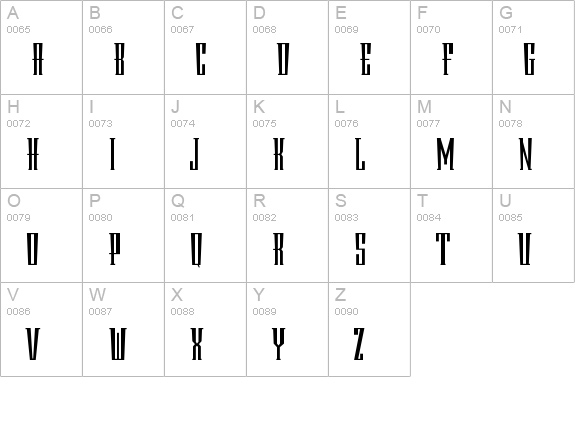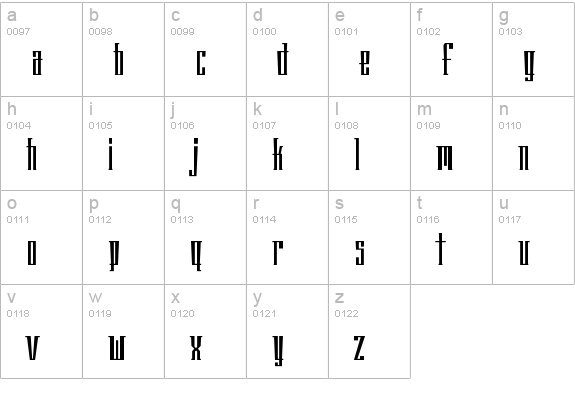
PhalanxRegular Font Details
PhalanxRegular font is a stylish and versatile typeface that is sure to catch the eye. Its clean lines and modern design make it perfect for a wide range of projects, from branding and advertising to social media graphics and website design. With its balanced proportions and legible letterforms, PhalanxRegular font is both aesthetically pleasing and highly readable. Its versatility allows it to seamlessly adapt to various design styles and themes, making it an excellent choice for both professional designers and casual users alike. One of the standout features of PhalanxRegular font is its extensive character set, which includes uppercase and lowercase letters, numbers, punctuation marks, and special symbols. This comprehensive range ensures that you have all the tools you need to bring your creative vision to life. But perhaps the best part about PhalanxRegular font is that it is completely free. That's right – you can download this stunning typeface for absolutely no cost at FontsMarket.com. This means that you can enhance your design projects without breaking the bank, making it an ideal choice for budget-conscious designers or anyone looking to add a touch of elegance to their work. So why wait? Don't miss out on the opportunity to elevate your design projects with PhalanxRegular font. Head over to FontsMarket.com and download it today – for free!